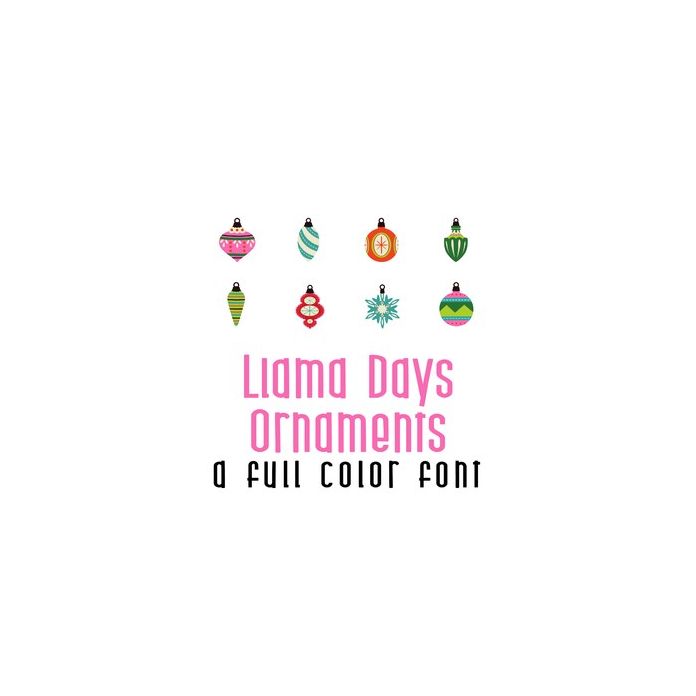
This adorable full-color doodlebat font features 26 holiday ornaments. Perfect for parties, crafts, gifts, decor, classrooms, scrapbook pages, planner stickers and more!. Perfect for cards, crafts, gifts, decor, scrapbook pages, planner stickers, and more!